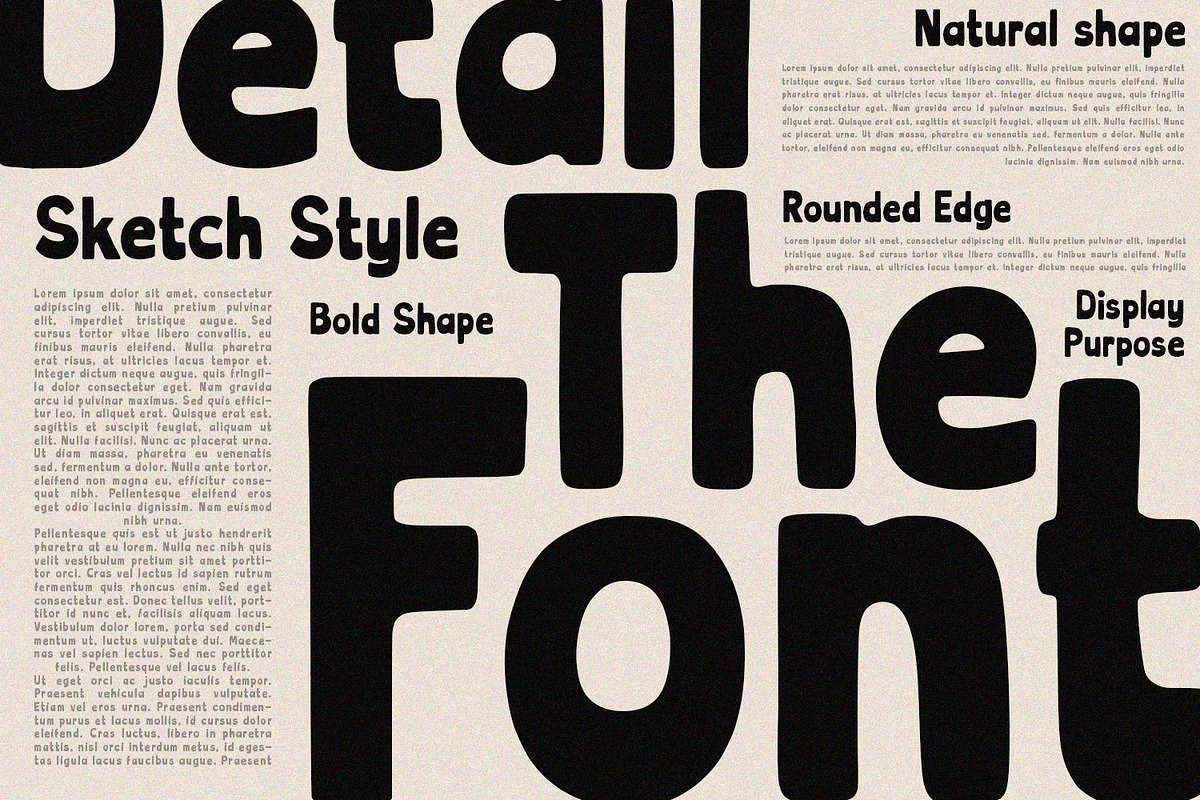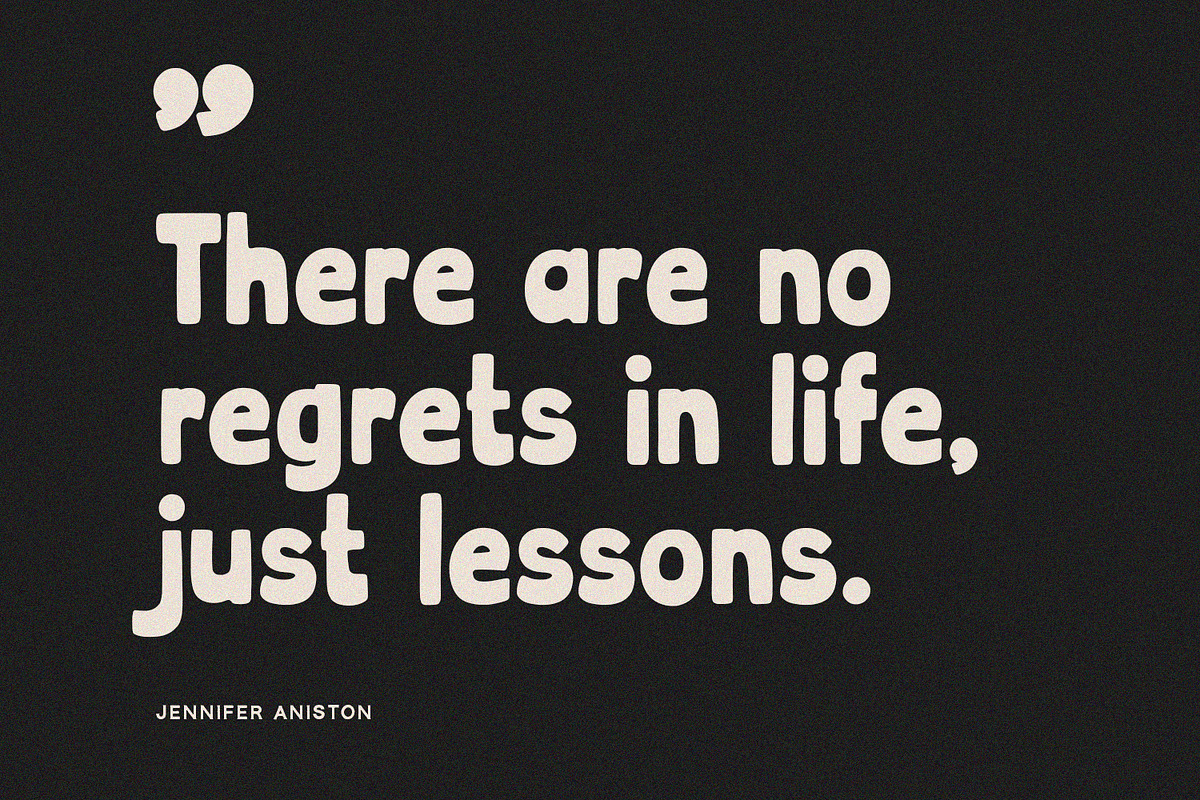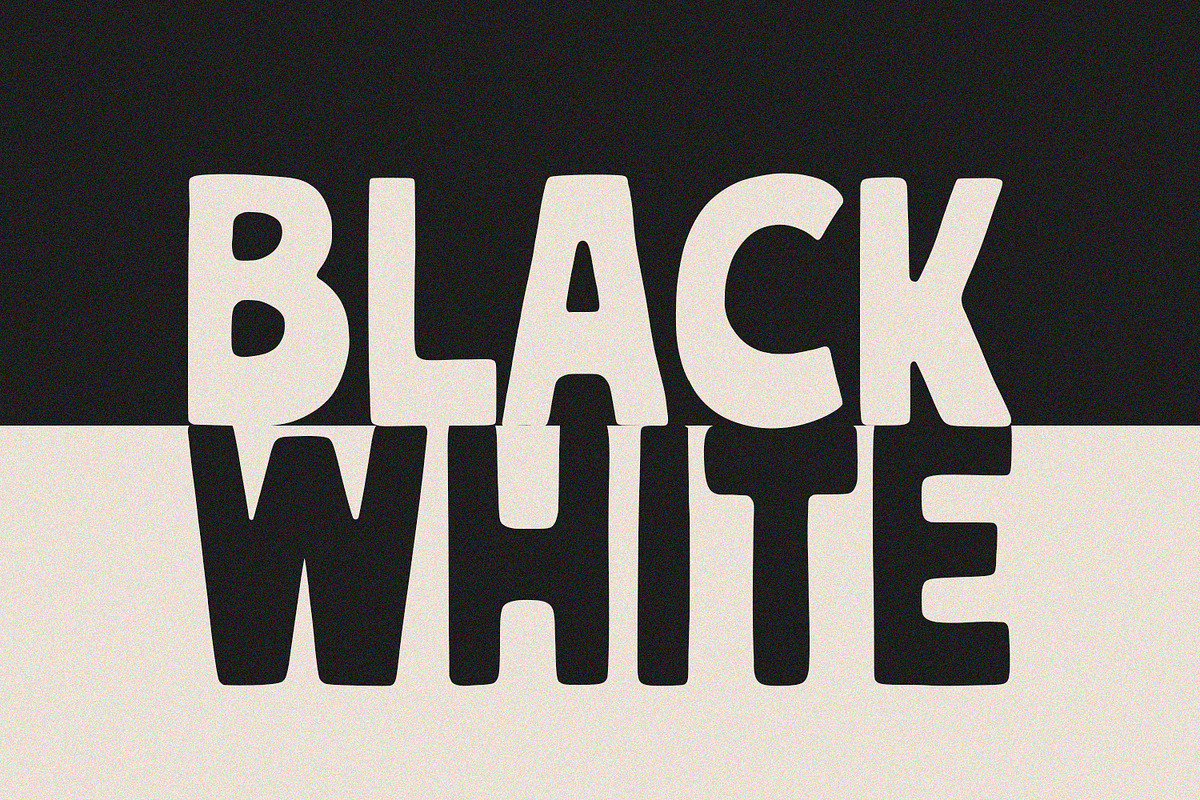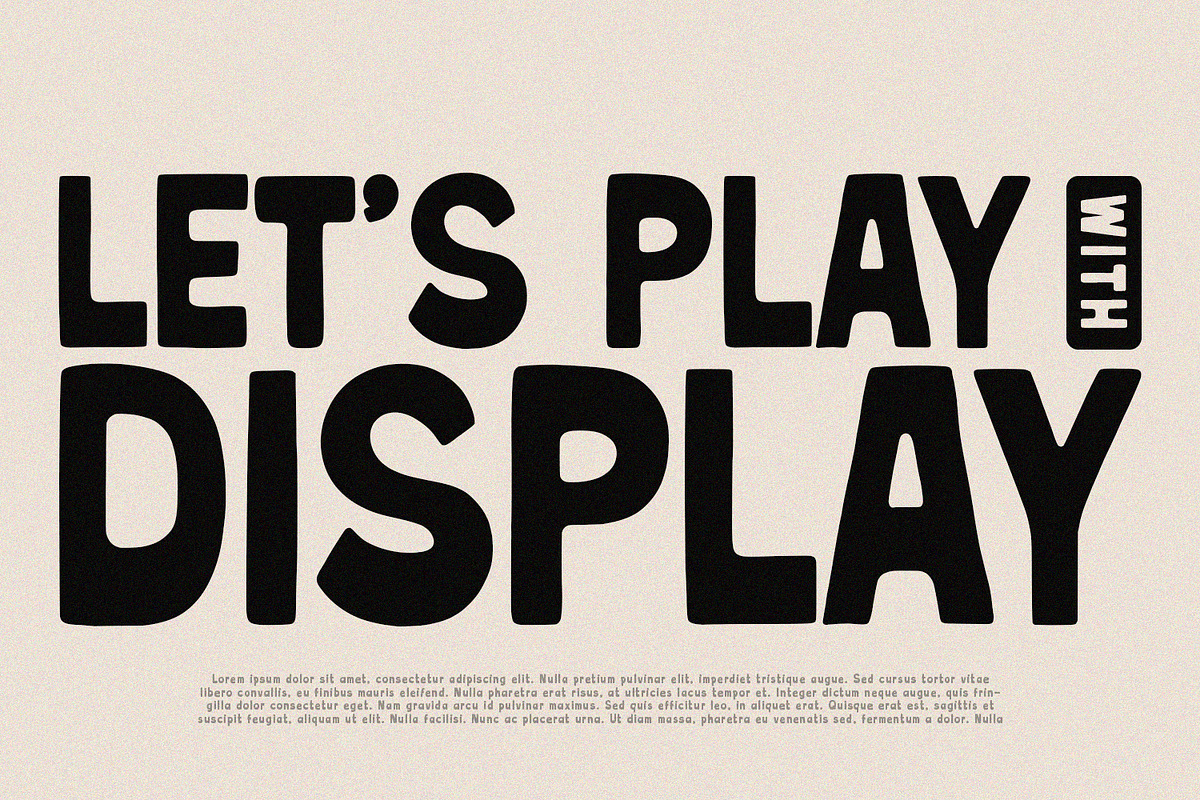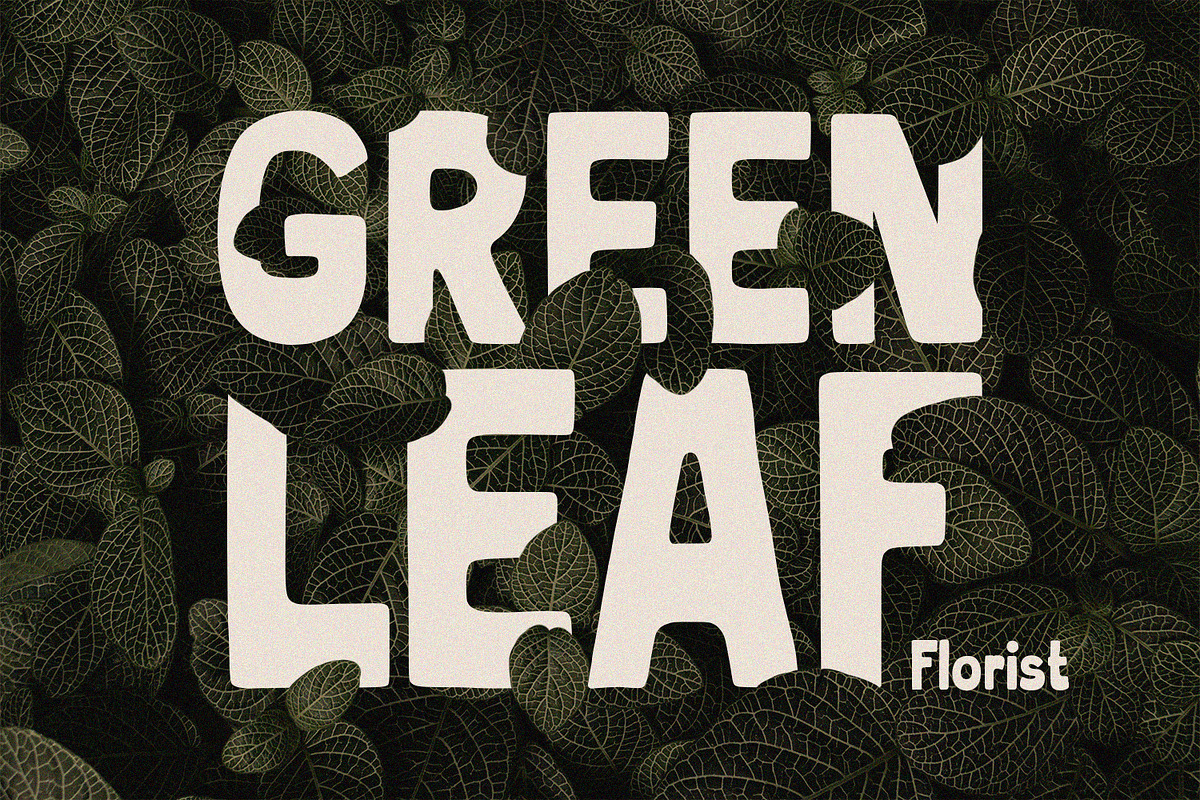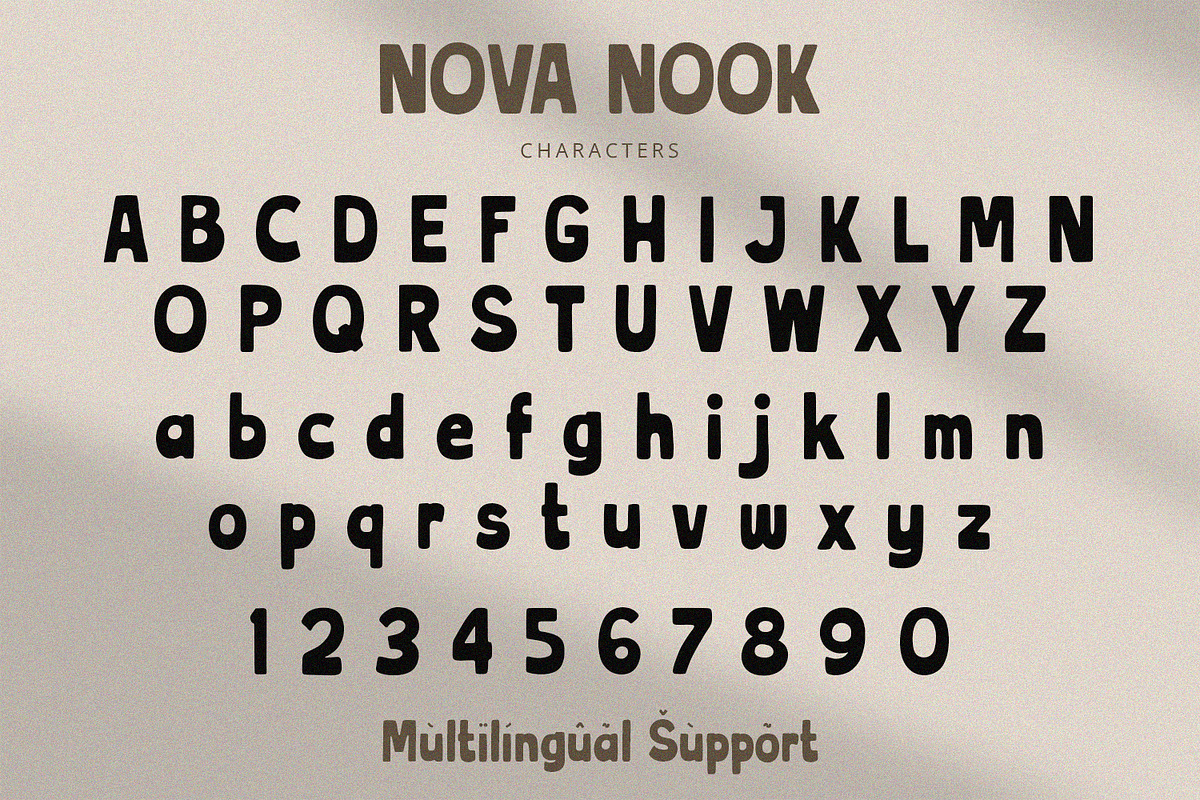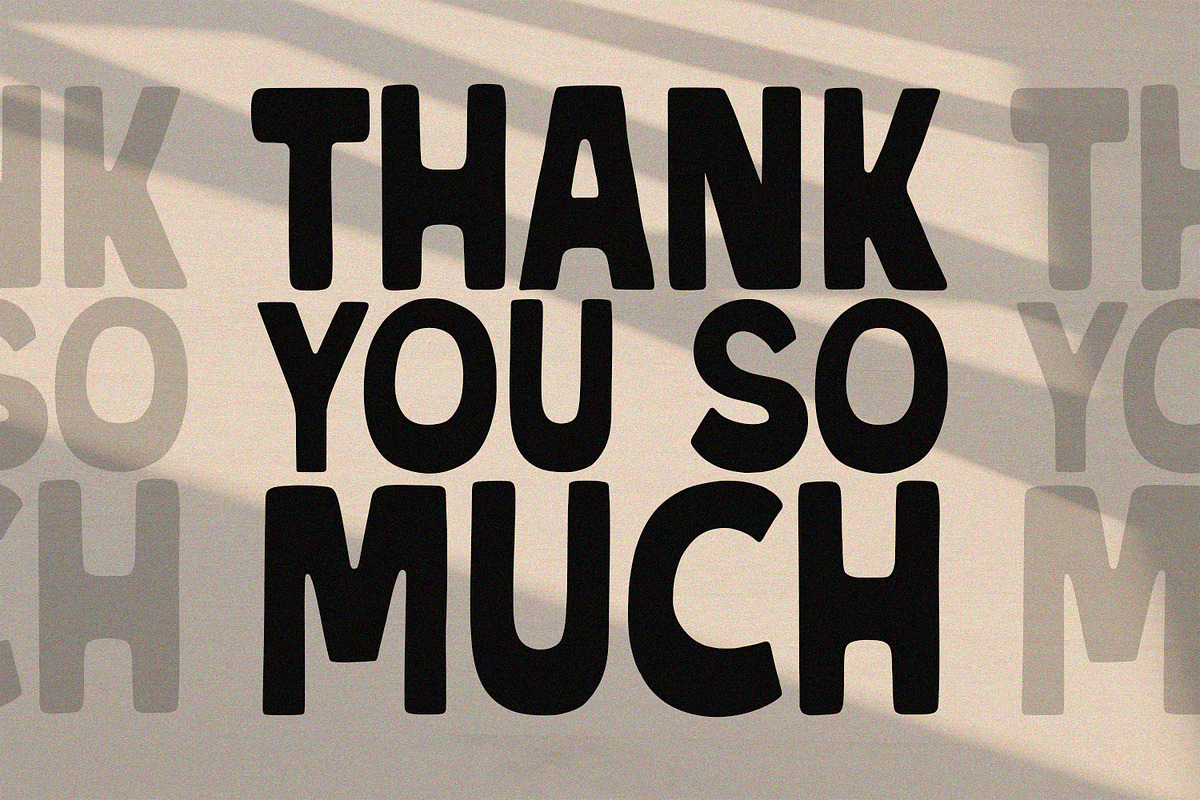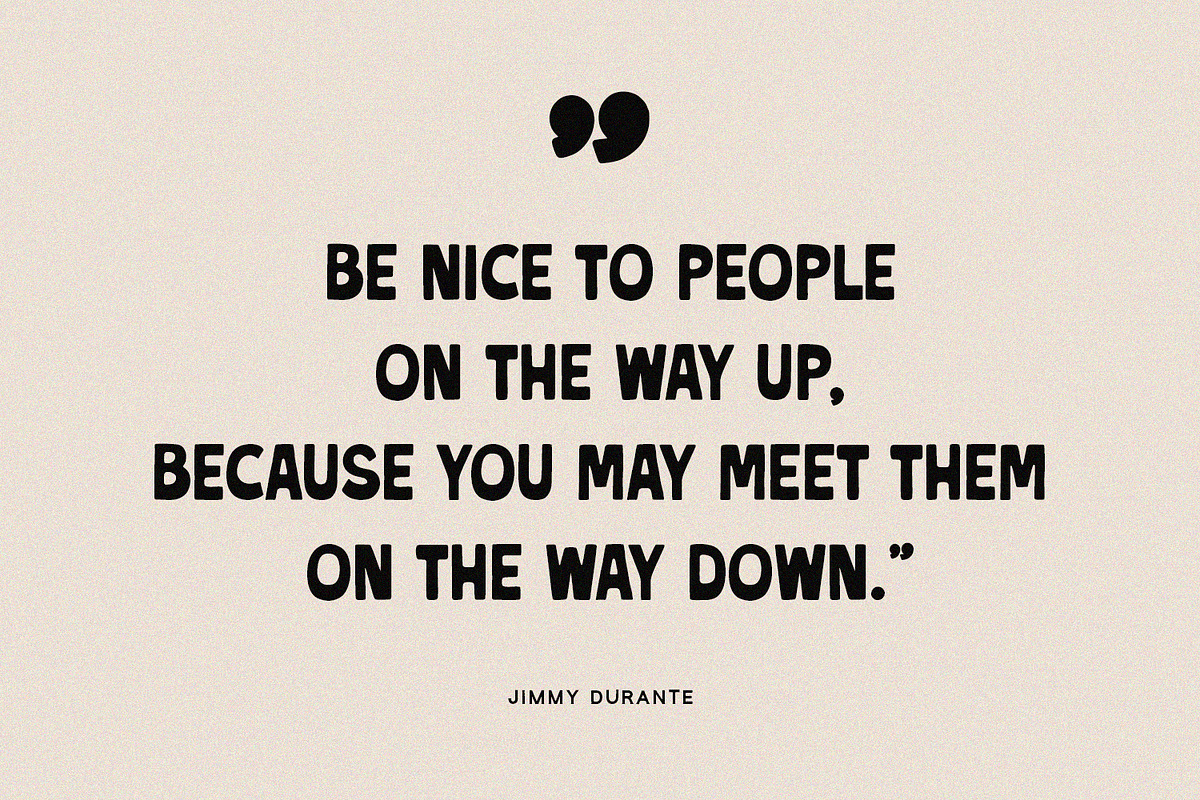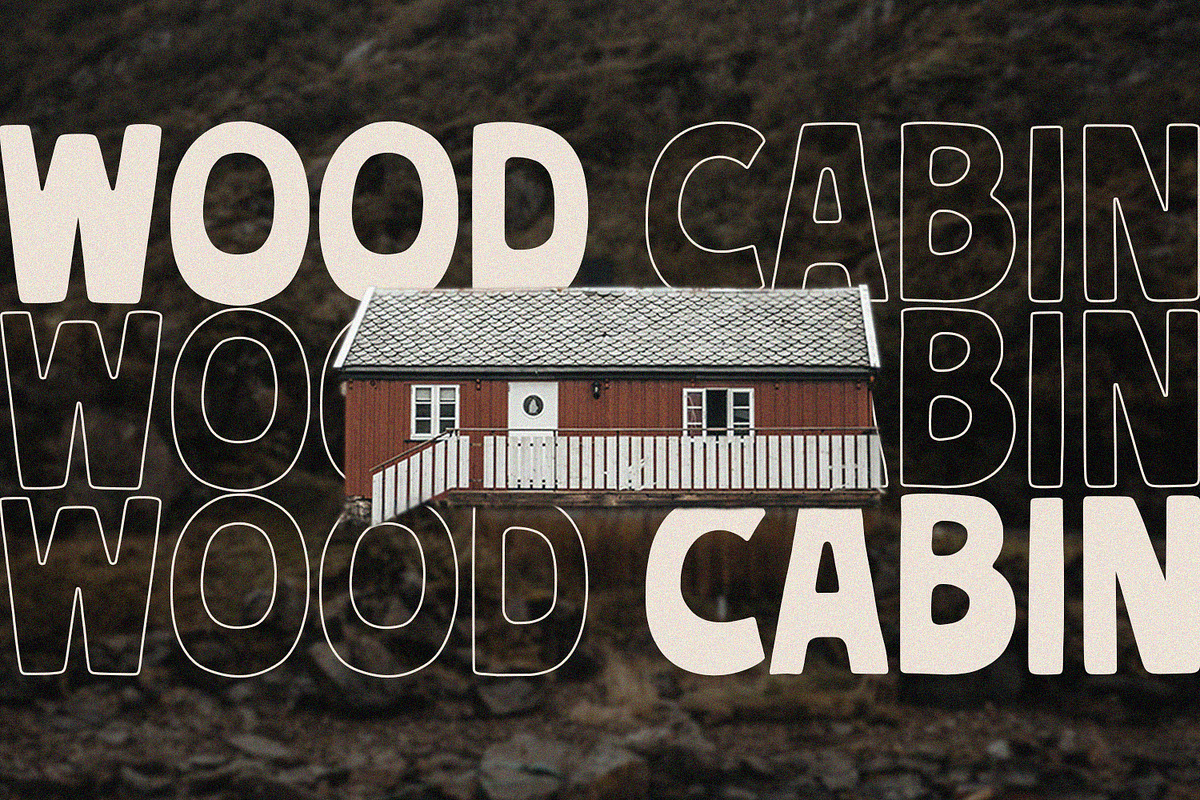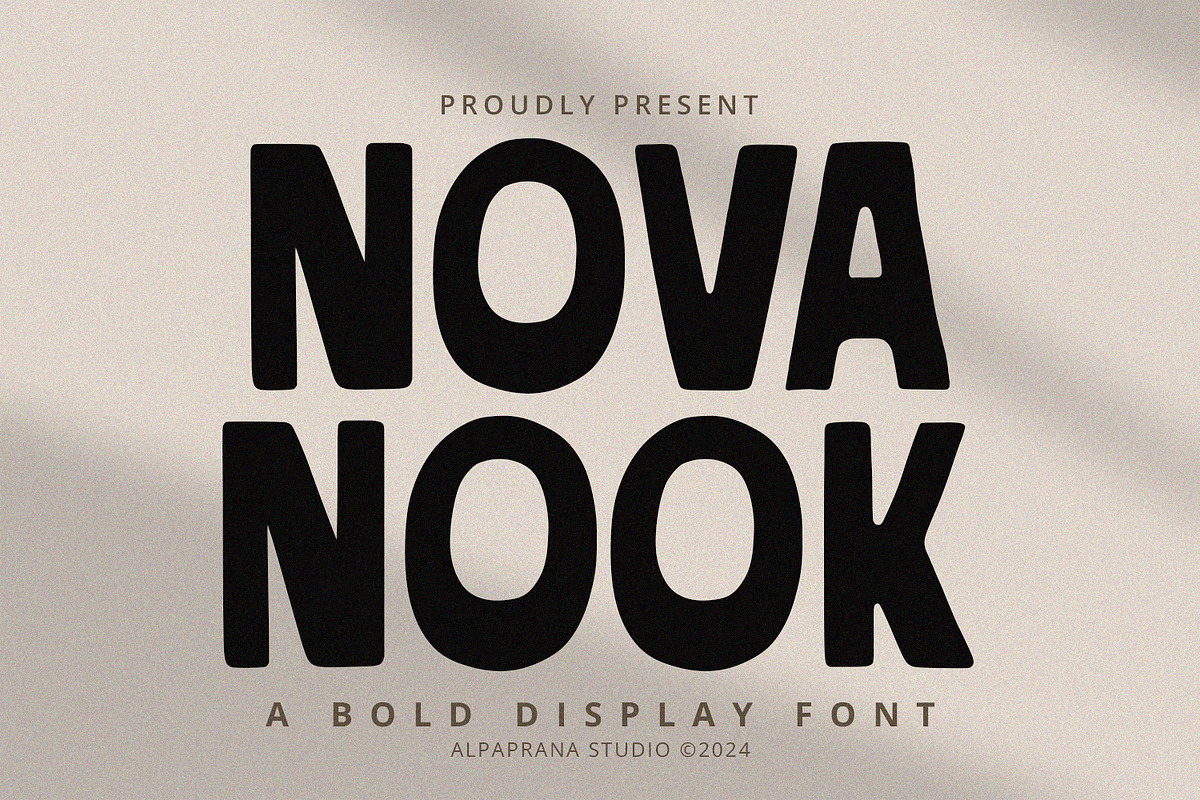
Nova Nook - Bold Display
Nova Nook is a blod display font with unique and modern feels. It will be perfectly used for Branding, Logo Design, Lettering, Logotype, Clothing, Poster, magazine, packaging, posters, shopping bags, t-shirts, book covers, photography, special events and other design project.